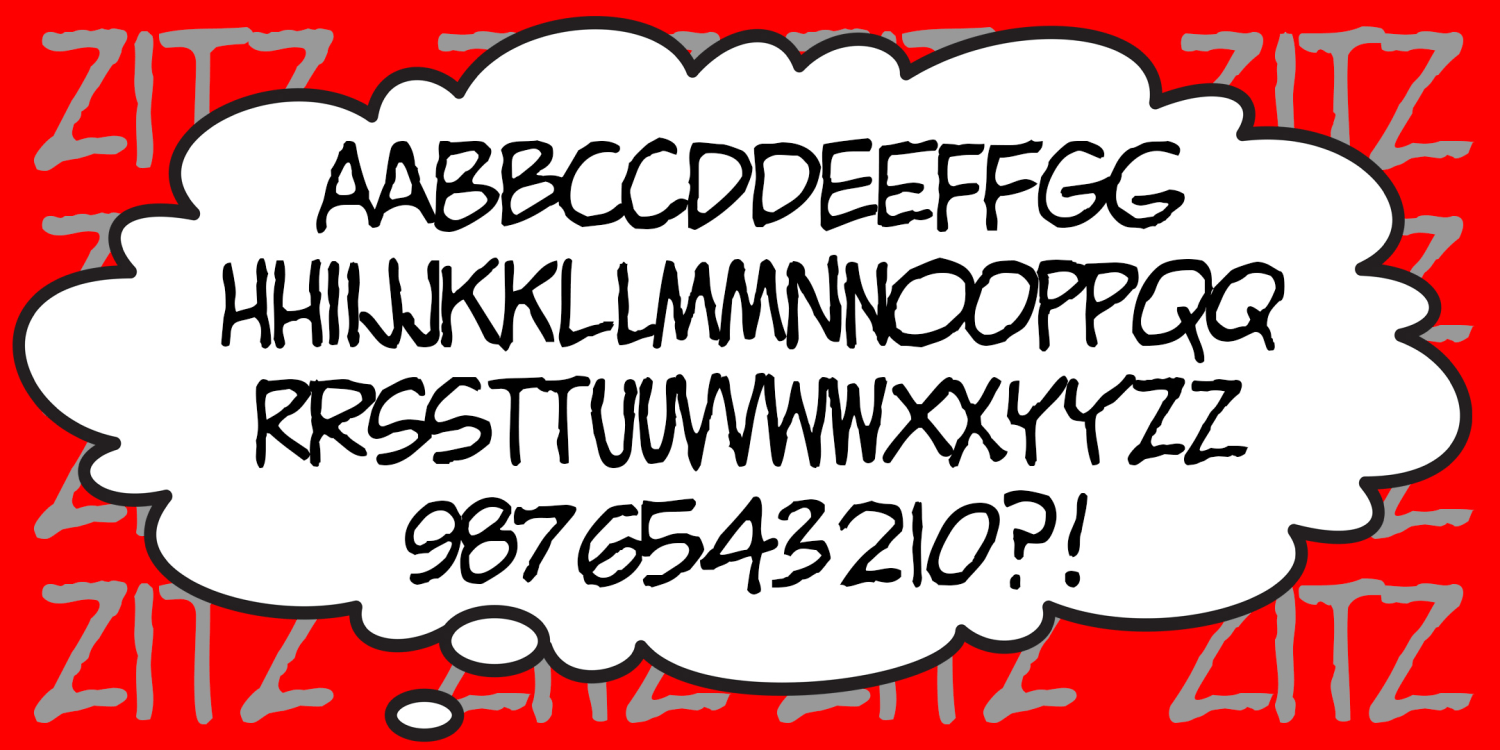
Zitz
About Zitz
ZITZ is a cartoon font, inspired by the hand lettering in the King Features daily strip Zits by Jim Borgman and Jerry Scott. According to Robert C. Harvey’s thoughtful "Children of the Yellow Kid: The Evolution of the American Comic Strip,"…